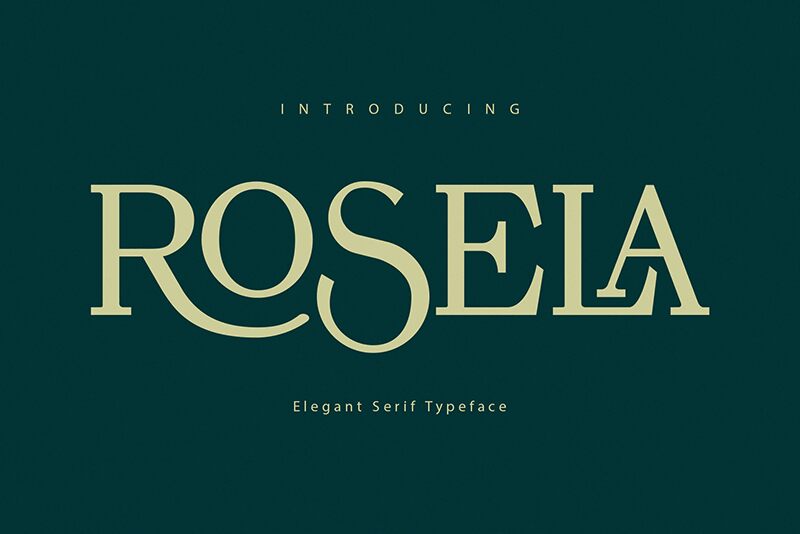
Rosela
Rosela, a serif font crafted by Dwi Sulistyono, exudes a timeless elegance with its classic yet refined aesthetic. Each letter boasts meticulous design details that encapsulate sophistication. The serif elements of Rosela add a touch of tradition, while its clean lines and balanced proportions breathe modernity into the typeface. This font's versatility shines in its ability to complement both print and digital mediums effortlessly.
With Rosela, designers can infuse their work with a sense of professionalism and polish that stands out in corporate branding, editorial spreads, and upscale packaging designs. Its serifs contribute to an excellent readability, making it equally suitable for body text as it is for headlines. Whether employed in creative projects or formal presentations, Rosela promises to deliver visual impact with understated grace.